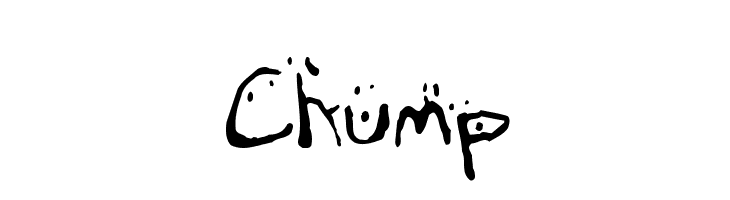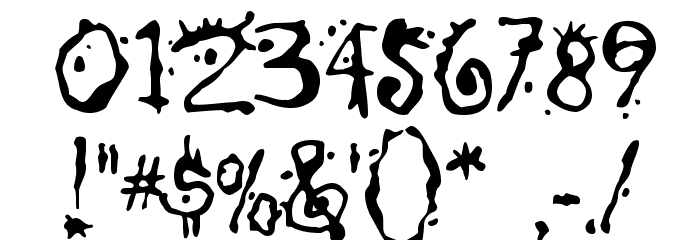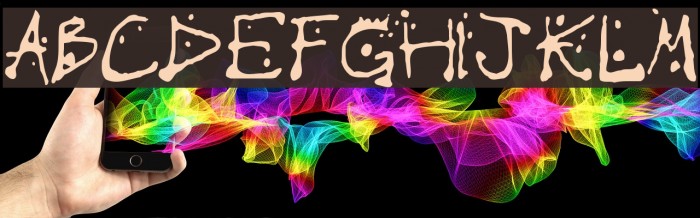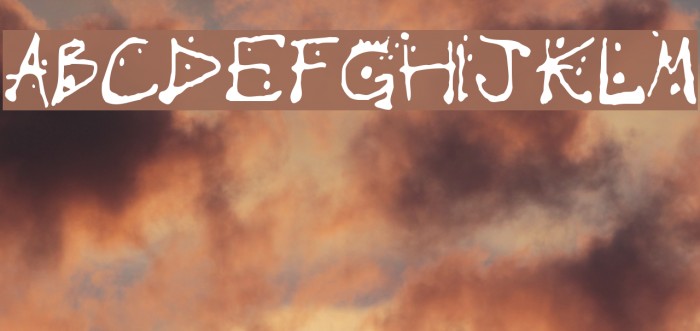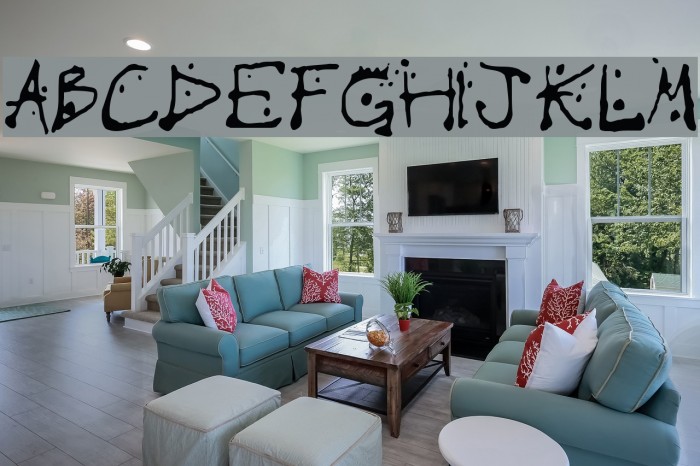
Chump Font
Chump Description
This font features a highly decorative and playful style, characterized by irregular, organic shapes that give it a whimsical and slightly chaotic appearance. The letters are unevenly weighted, with strokes that vary in thickness, creating a dynamic and energetic feel. The uppercase and lowercase letters maintain a consistent theme, with quirky details such as drips and splatters that add to its unique personality. Numbers and special characters follow the same design principles, ensuring a cohesive look throughout. This font is ideal for projects that require a bold, eye-catching typeface with a touch of humor and creativity.
| Proposed Projects | Ideal for Halloween-themed designs, children's book covers, playful branding, or any project requiring a quirky and eye-catching typeface. |